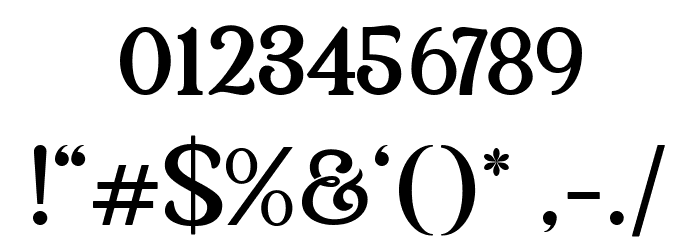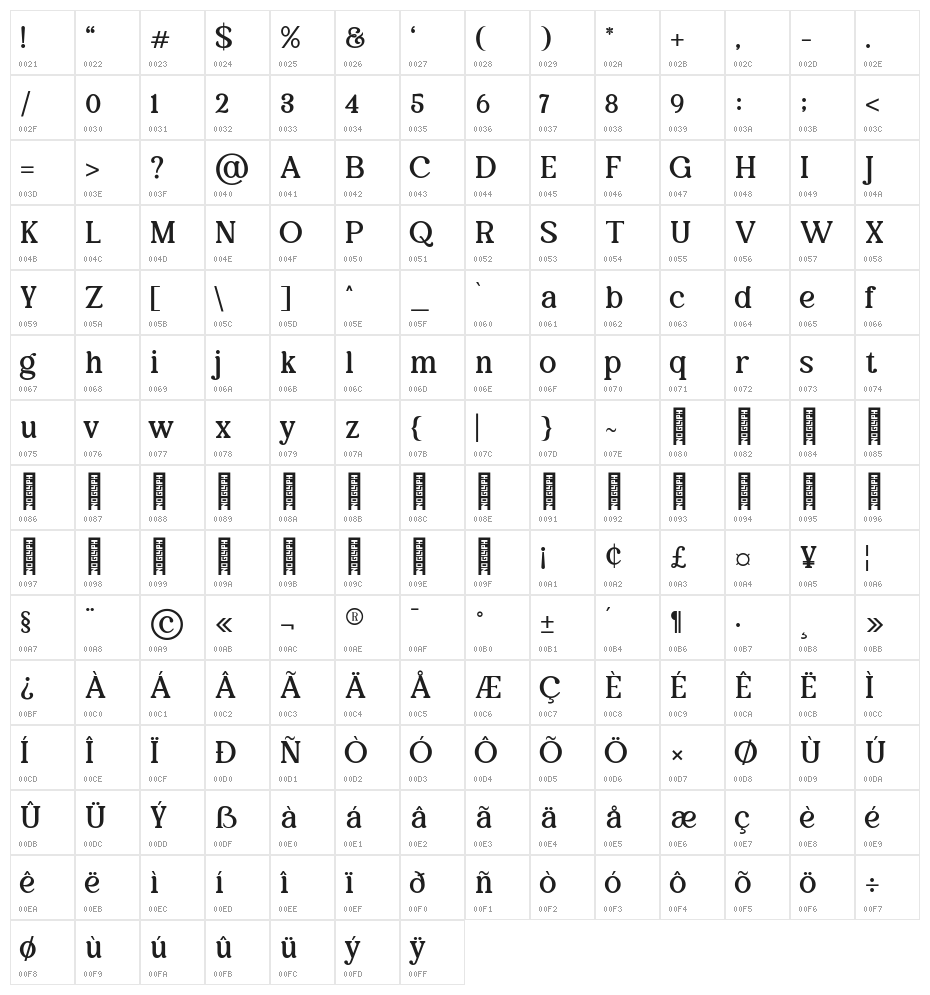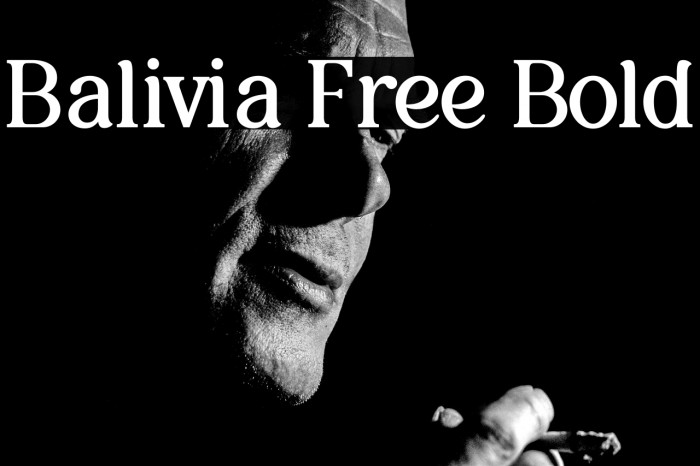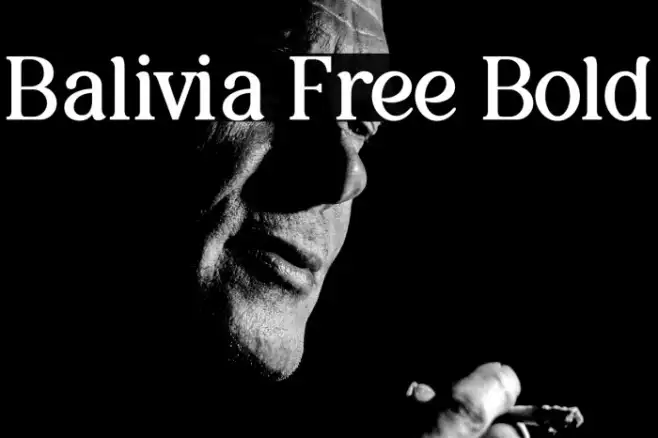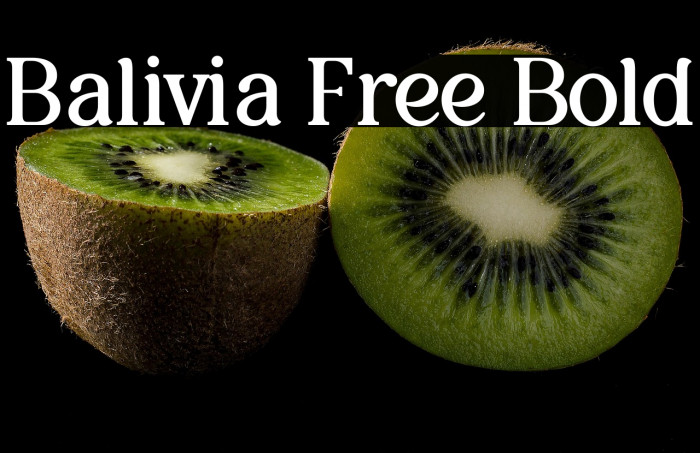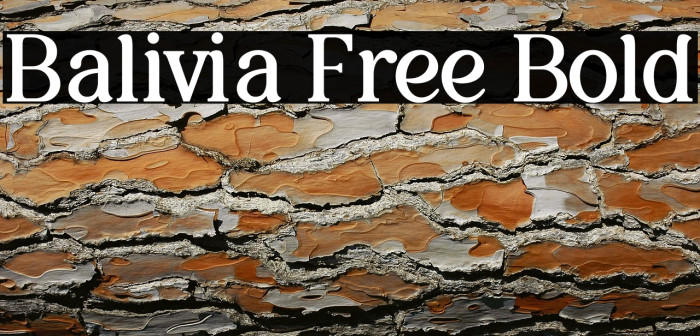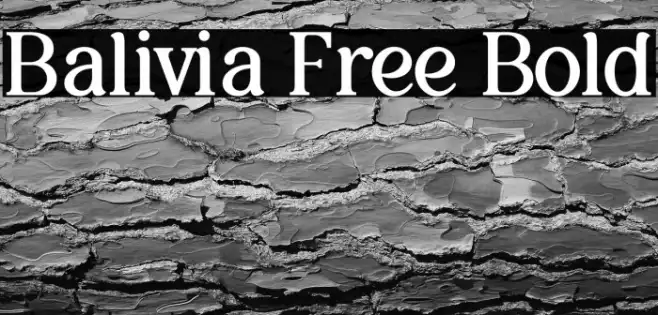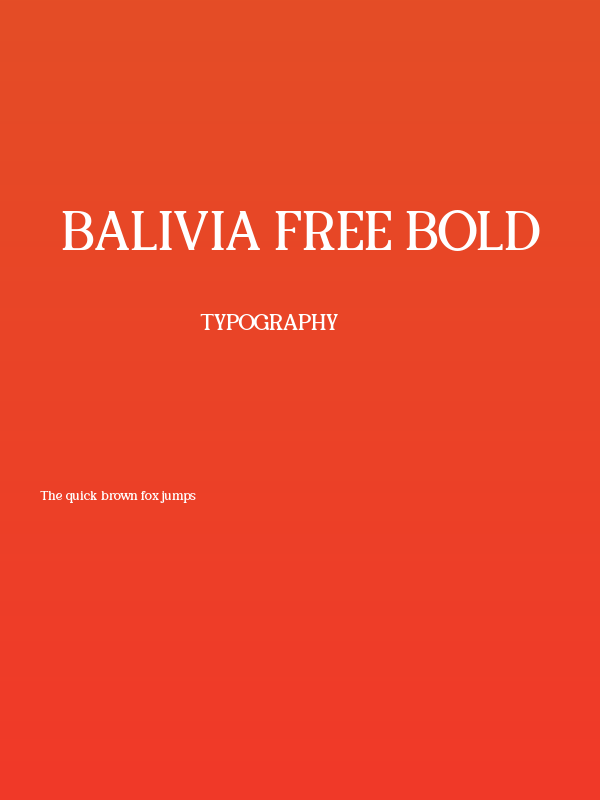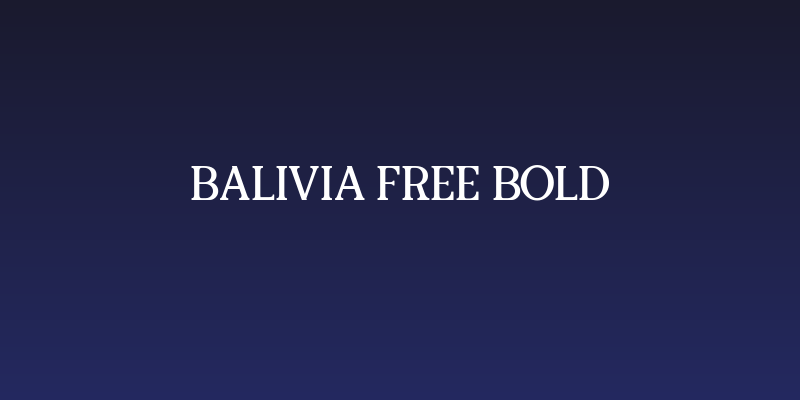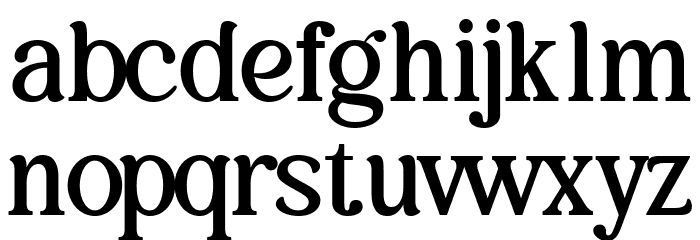
Balivia Free Bold Font
Balivia Free Bold Description
This font features a bold and classic serif style, characterized by its strong and pronounced serifs that give it a traditional yet impactful appearance. The uppercase letters are tall and commanding, while the lowercase letters maintain a balanced and harmonious look. The numerals are clear and easily readable, making them suitable for various applications. The special characters are well-defined, adding versatility to the font's usage. Overall, this font exudes a sense of authority and elegance, making it ideal for projects that require a touch of sophistication.
| Use Case | Headlines, Logos, Editorial design |
| Proposed Projects | Ideal for book covers, editorial design, branding, and formal invitations. |